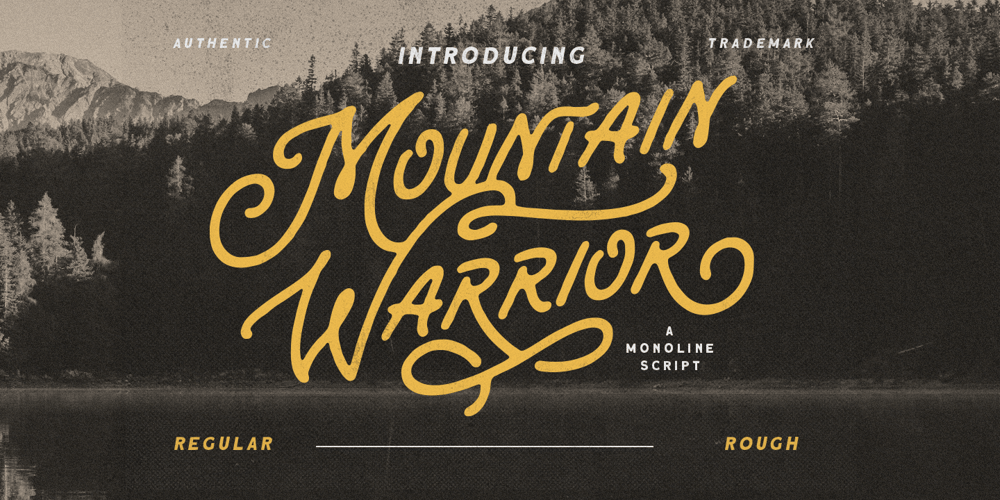
Mountain Warrior Font Family was designed by Hendry Juanda and published by Letterhend. Mountain Warrior contains 2 styles and family package options. Mountain Warrior is a monoline script with a touch of retro look and feel. This type of font perfectly made to be applied especially in logo, headline, signage and the other various formal forms such as invitations, labels, logos, magazines, books, greeting / wedding cards, packaging, fashion, make up, stationery, novels, labels or any type of advertising purpose.Features : uppercase & lowercase regular & rough numbers and punctuation multilingual alternates / swashes and ligatures PUA encoded We highly recommend using a program that supports OpenType features and Glyphs panels like many of Adobe apps and Corel Draw, so you can see and access all Glyph variations.